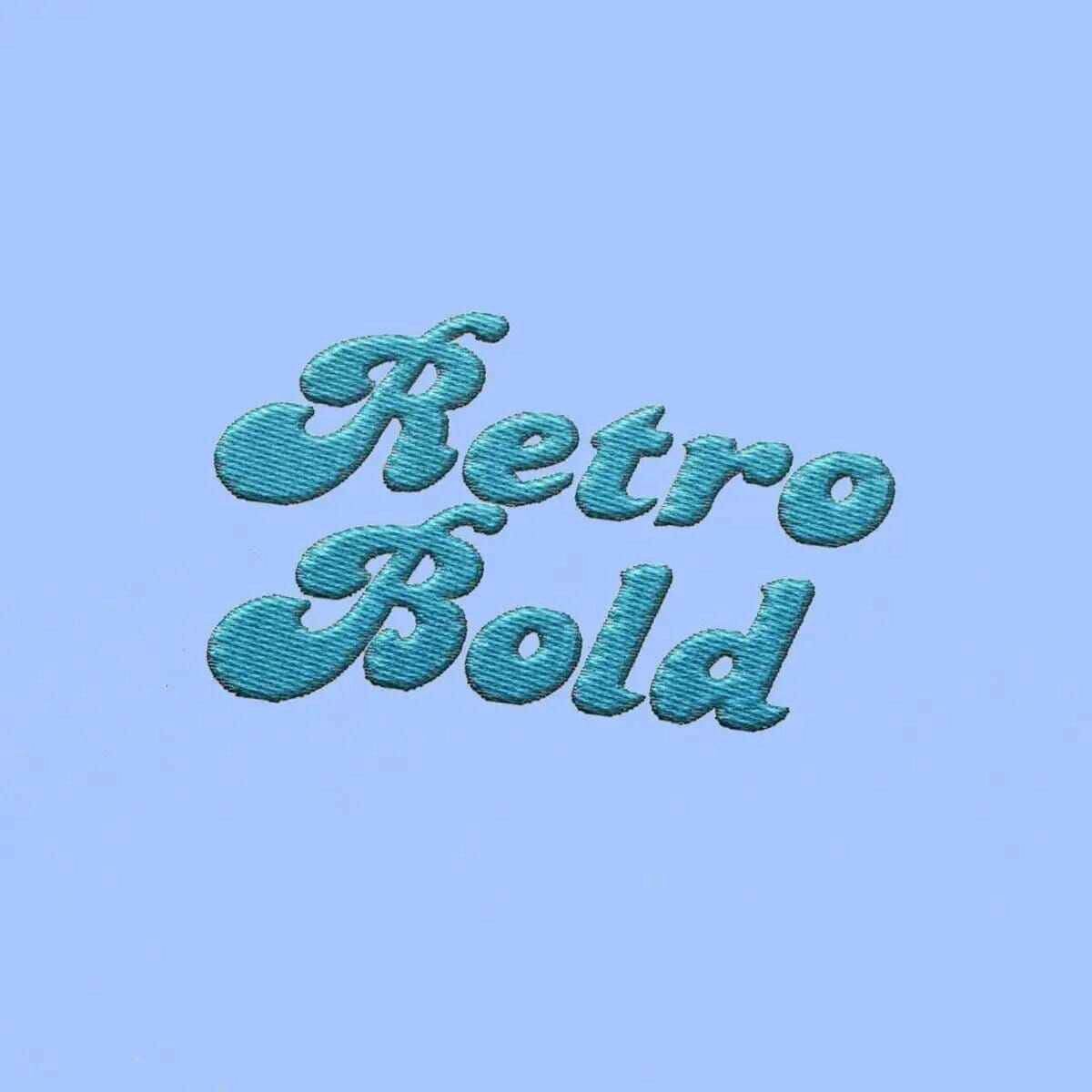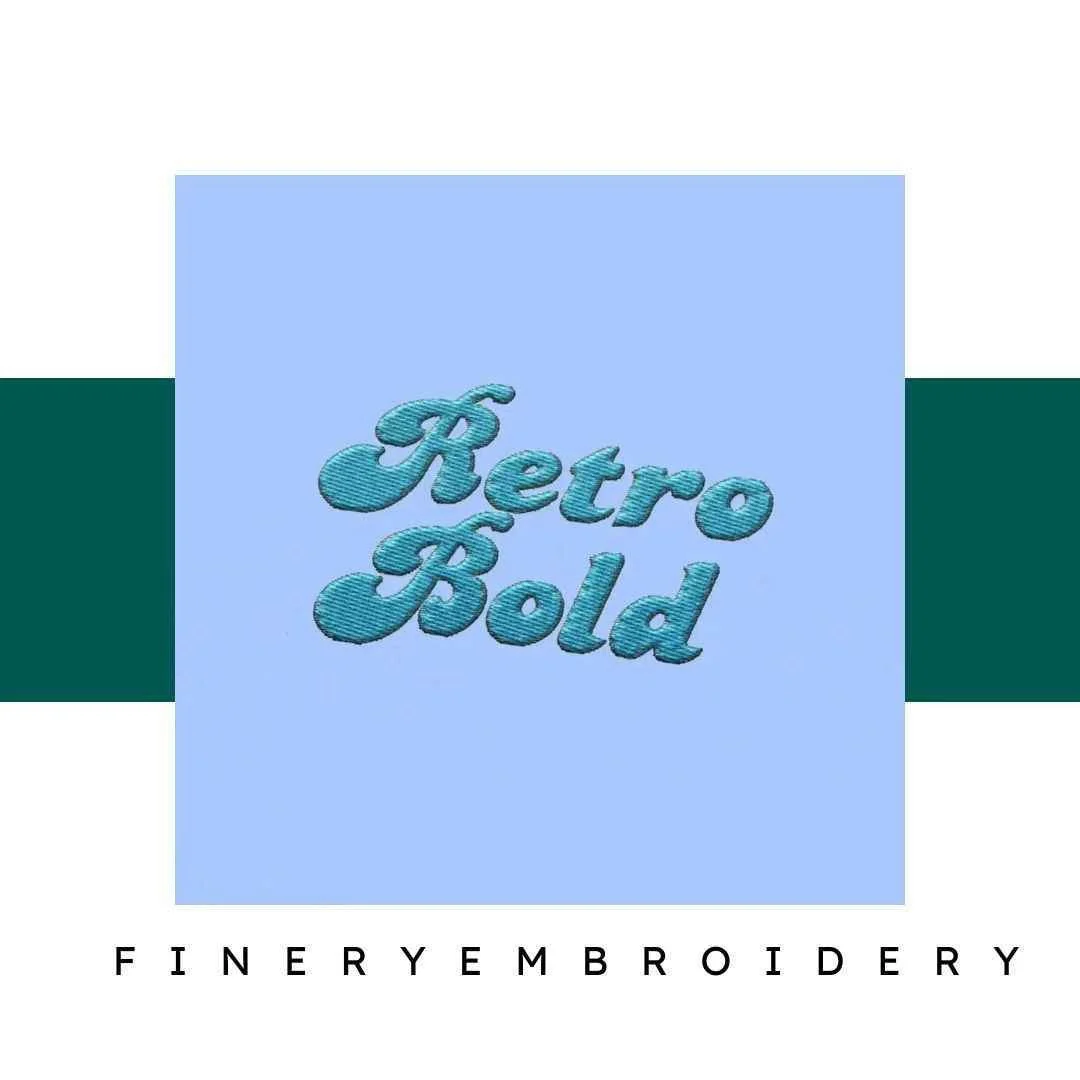
Unleash your creativity with the Retro Bold Embroidery Alphabet Font Set β where nostalgia meets modern design!
Welcome to a world of possibilities with the Retro Bold Embroidery Alphabet Font Set. This stylish font set is perfect for anyone looking to infuse their embroidery projects with a unique flair. Each letter brings a vintage charm that enhances the elegance of your designs. Whether youβre a hobbyist or a professional, this font set will take your creativity to the next level!
Why You'll Love This Design
The Retro Bold Embroidery Alphabet Font Set transforms your creations with its chic retro design. Each character is expertly crafted to ensure crisp, clean lines and a polished finish, making your embroidery stand out. You'll appreciate how it adds a sophisticated touch to everything from home decor to personalized gifts.
Creative Applications
Imagine the endless possibilities! Use this versatile font set to create stunning monograms, playful quotes, or even labels for your handmade items. Perfect for bags, jackets, and even home textiles, this alphabet set allows you to express your individuality and creativity in every project you undertake.
Digitized for Passionate Embroiderers
At Finery Embroidery, we understand the passion that goes into every project. We remember one of our team members who created a beautiful set of pillows using this font set for her grandmother's birthday. The joy it brought made us realize how impactful the right design can be. This font set is digitized for precision, allowing you to achieve professional-quality results effortlessly.
- Transform your projects with retro elegance and style.
Unleash your creativity with the Retro Bold Embroidery Alphabet Font Set β where nostalgia meets modern design!
Welcome to a world of possibilities with the Retro Bold Embroidery Alphabet Font Set. This stylish font set is perfect for anyone looking to infuse their embroidery projects with a unique flair. Each letter brings a vintage charm that enhances the elegance of your designs. Whether youβre a hobbyist or a professional, this font set will take your creativity to the next level!
Why You'll Love This Design
The Retro Bold Embroidery Alphabet Font Set transforms your creations with its chic retro design. Each character is expertly crafted to ensure crisp, clean lines and a polished finish, making your embroidery stand out. You'll appreciate how it adds a sophisticated touch to everything from home decor to personalized gifts.
Creative Applications
Imagine the endless possibilities! Use this versatile font set to create stunning monograms, playful quotes, or even labels for your handmade items. Perfect for bags, jackets, and even home textiles, this alphabet set allows you to express your individuality and creativity in every project you undertake.
Digitized for Passionate Embroiderers
At Finery Embroidery, we understand the passion that goes into every project. We remember one of our team members who created a beautiful set of pillows using this font set for her grandmother's birthday. The joy it brought made us realize how impactful the right design can be. This font set is digitized for precision, allowing you to achieve professional-quality results effortlessly.
- Transform your projects with retro elegance and style.